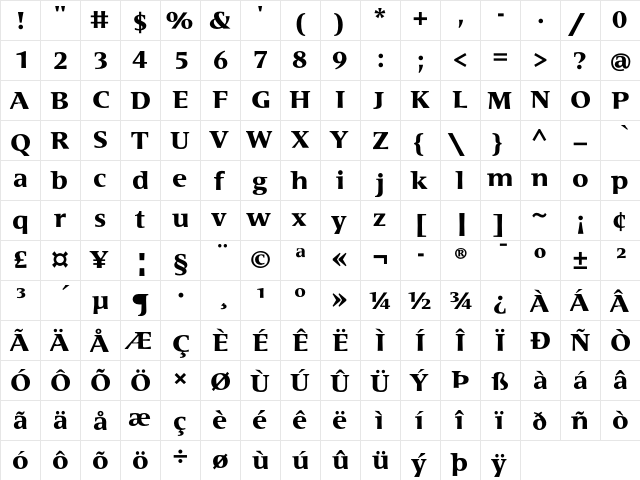
Areplos Text Pro Bold
| Foundry | Jan Solpera |
| Designer | Jan Solpera |
Design Context for Areplos Text Pro Typeface
Areplos Text Pro is a composed and adaptable typeface that performs quietly and consistently across a wide range of design contexts. The heavy weight commands attention and anchors typographic hierarchies.